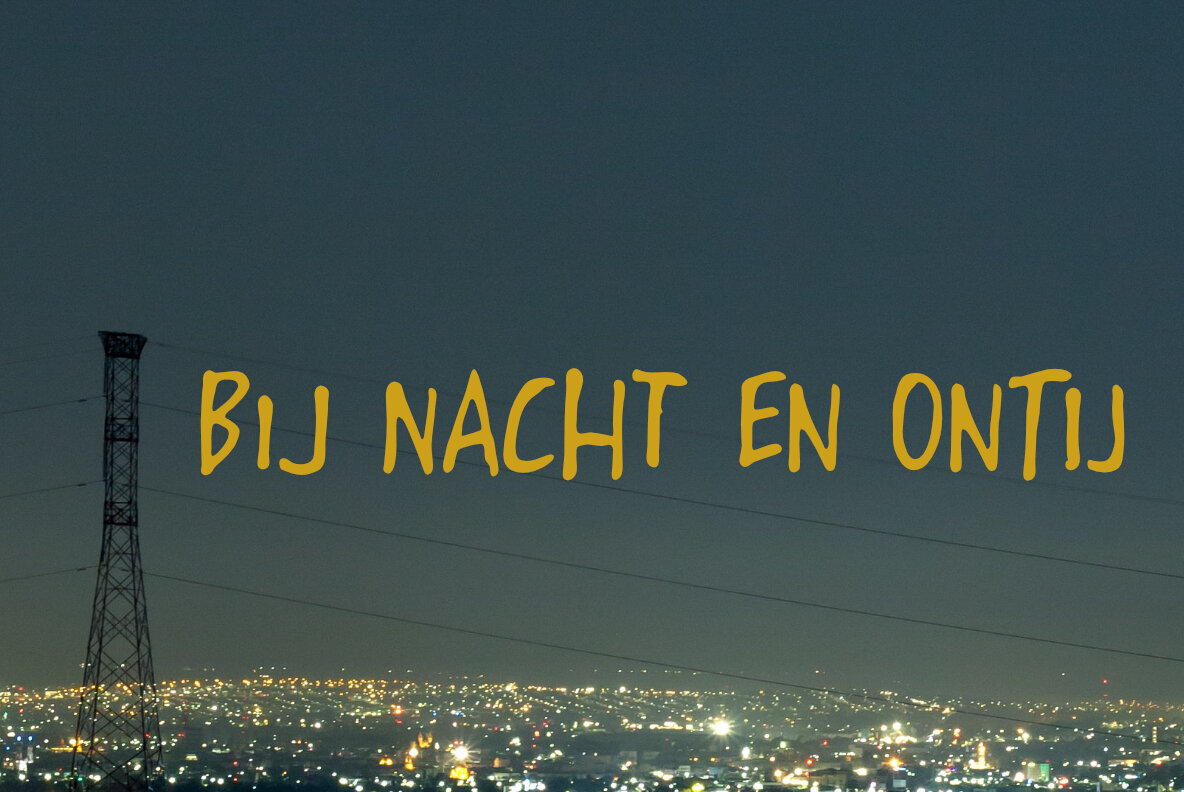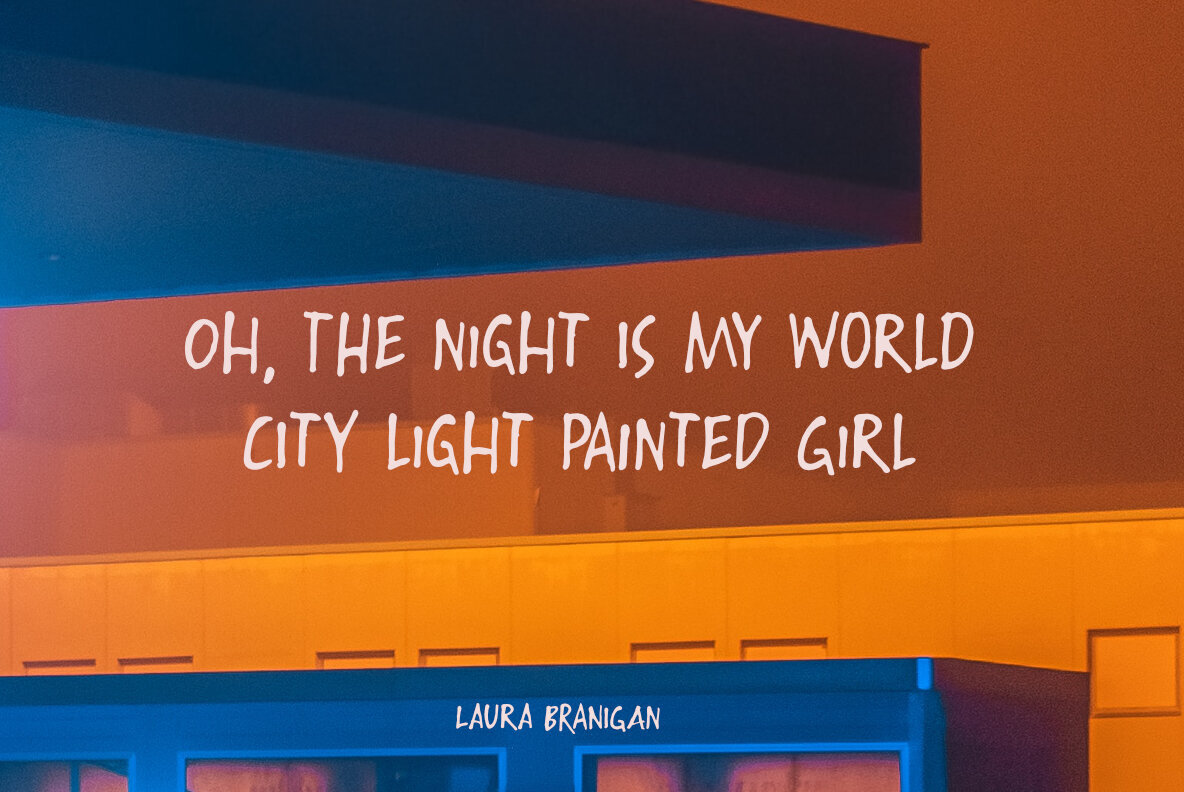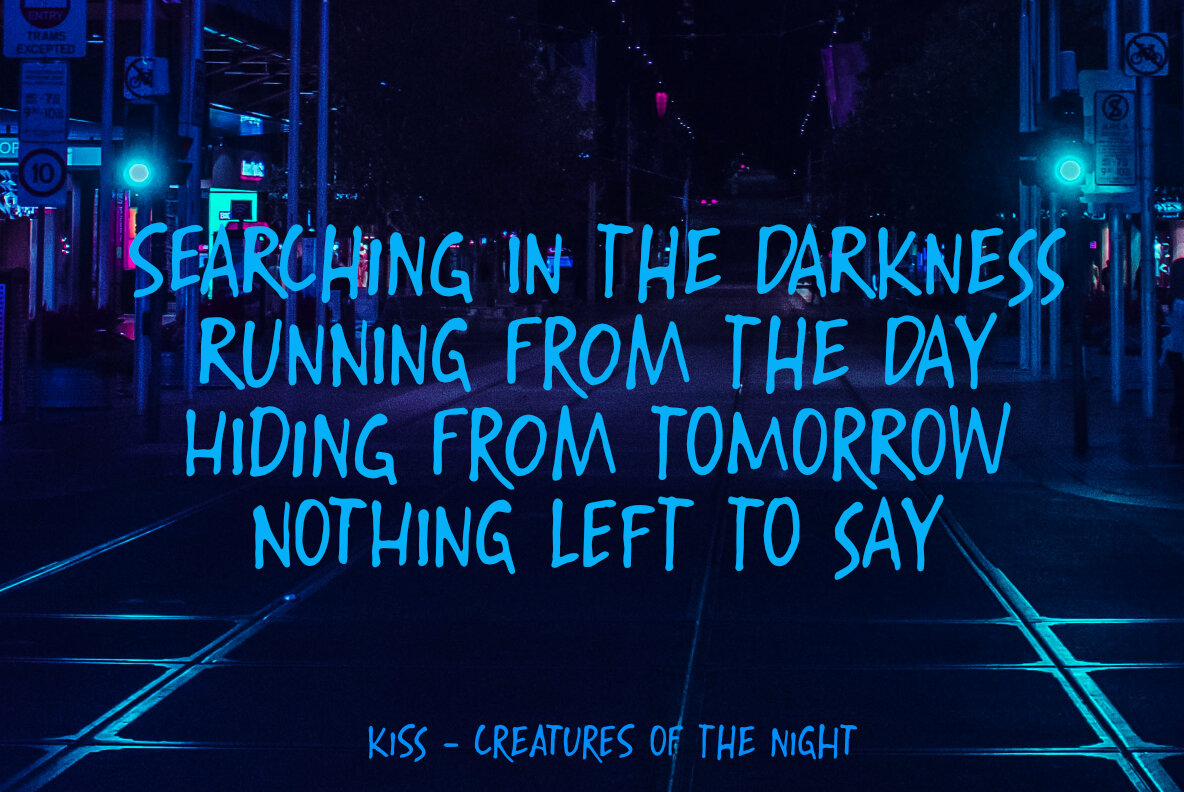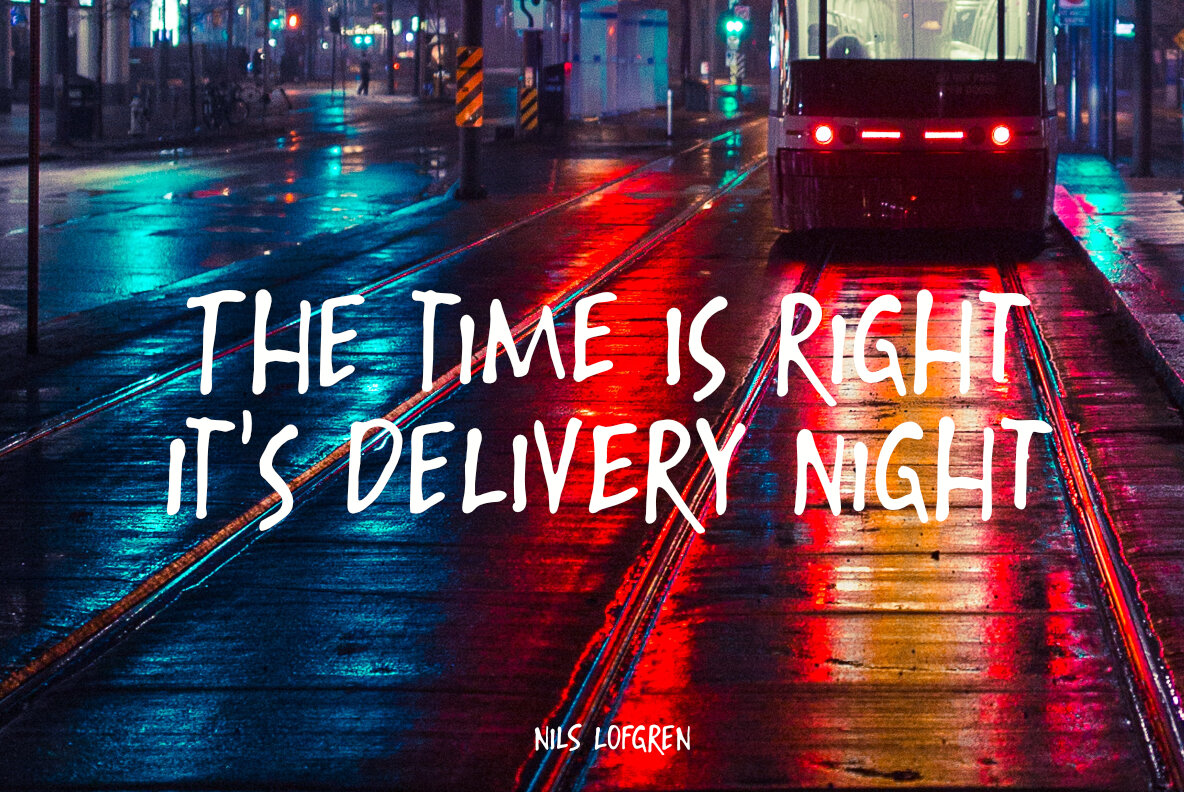
Night Delivery Font
Since I live in a hamlet without any facilities whatsoever, I order a lot online. Most deliveries are done during daytime, but some companies prefer to deliver my stuff at night. When I was drawing out the glyphs for this font (using my Chinese ink and a broken paint stirrer), the door bell rang. It was a Night Delivery…